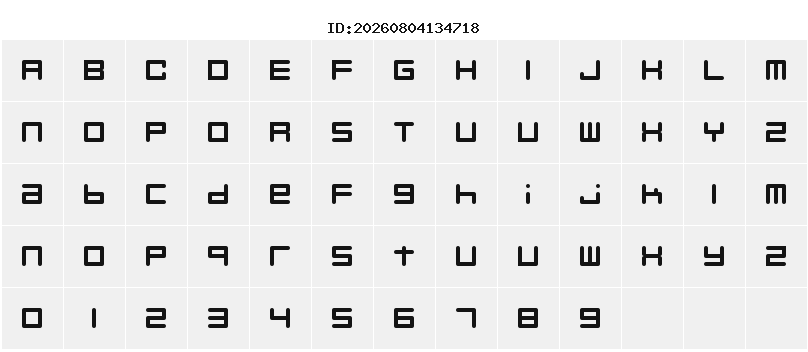
• Font Name: Nine Network logo font
• Designer: Daniel Lyons
• Description: ‚ÄúNine Network logo font‚Äù was built with FontStruct
About Nine Network logo font.ttf
Nine Network logo font.ttf is a modern, elegant sans-serif font designed for ultimate readability and visual harmony. Perfect for branding, headlines, web design, and print materials.